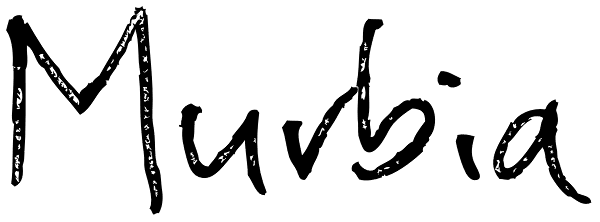
Murbia
Murbia was written with a glimmer-pen which has left the letters with a grungy look. What's even better is that the font comes with loads of ligatures for both double letters/numbers and the most common letter combinations...just to make the font...